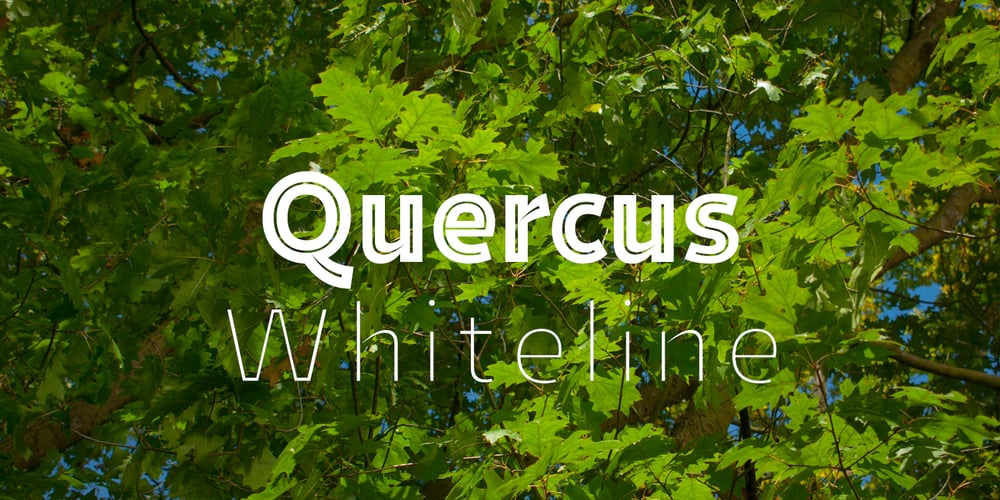
Quercus Whiteline
Quercus Whiteline font
Quercus Whiteline Font Family was designed by František Štorm and published by Storm Type Foundry. Quercus Whiteline contains 3 styles and family package options. Quercus is characterised by open, yet a little bit condensed drawing with sufficient spacing so that the neighbouring letters never touch. It has eight interpolated weights with respective italics. Their fine gradation allows to find an exact valeur for any kind of design, especially on the web. Quercus serif styles took inspiration from classicistic typefaces with vertical shadows, ball terminals and thin serifs. The italics have the same width proportion as upright styles. This “modern” attitude is applied to both families and calls for use on the same page, e g in dictionaries and cultural programmes. Serif styles marked by “10” are dedicated to textual point sizes and long reading. The sans-serif principle is rather minimalistic, with subtle shadows and thinned joints between curved shapes and stems. Quercus family comprises of the usual functionality such as Small Caps, Cyrillics, diacritics, ligatures, scientific and aesthetic variants, swashes, and other bells & whistles. It excels in informational and magazine design, corporate identity and branding, but it’s very well suited for book covers, catalogues and posters as well. When choosing a name for this typeface I’ve been staring out from my studio window, thinking helplessly without any idea in sight. Suddenly I realised that all I can see is a spectacular alley of oaks (Quercus in Latin) surrounding my house. These oaks were planted by the builders of local ponds under the leadership of Jakub Krčín in the fifteenth century.